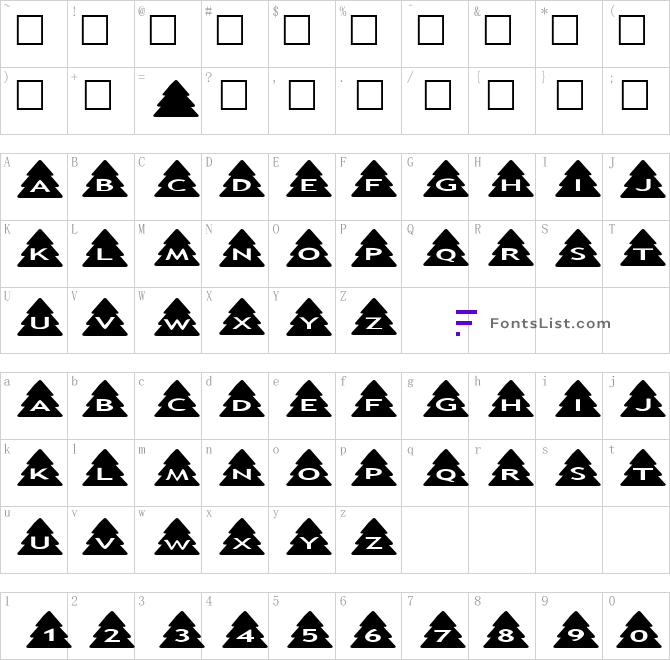
- Font Name:AlphaShapes xmas trees
AlphaShapes-xmas-trees-copy-1-.ttf is a very beautiful artistic font, AlphaShapes-xmas-trees-copy-1-.ttf is widely used in the design and printing of various books and pictures,AlphaShapes-xmas-trees-copy-1-.ttf has a strong visual impact,AlphaShapes-xmas-trees-copy-1-.ttf is a commonly used font in newspapers, magazines and books, and is used in posters, e-commerce Poster design, store design, logo design, font design and other fields.AlphaShapes-xmas-trees-copy-1-.